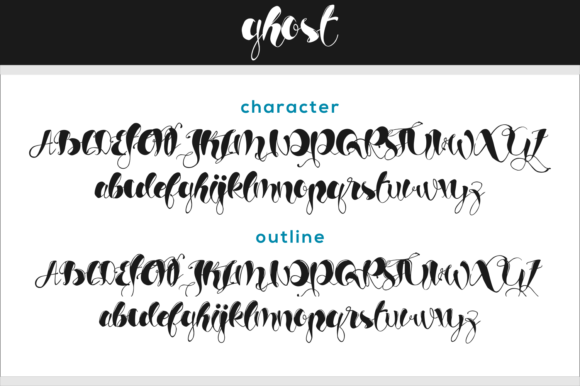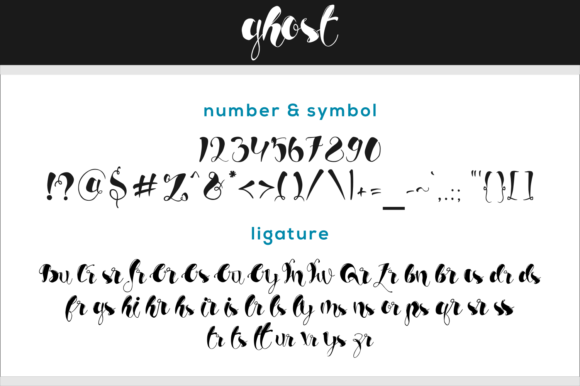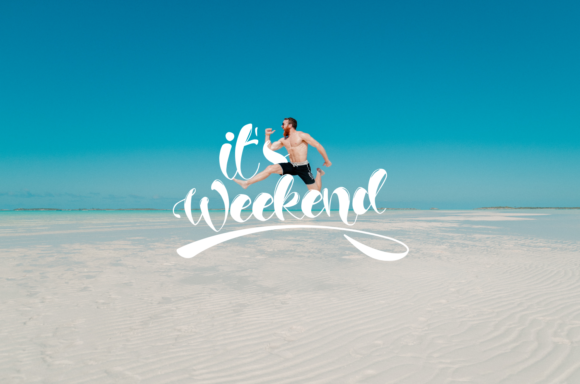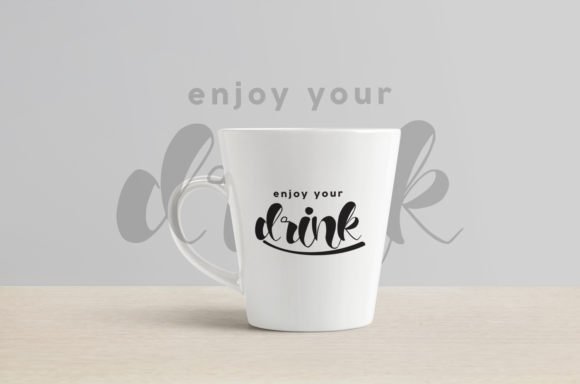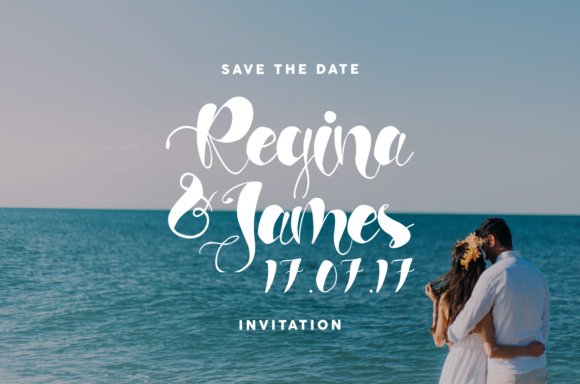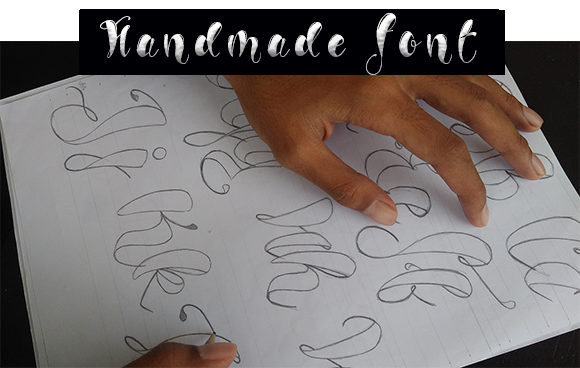
Introduction to Ghost Family Font
Have you ever found yourself stuck in front of a blank design screen, desperate for the perfect font to bring your creative project to life? It’s a moment we’ve all experienced, and it’s frustrating to say the least. But what if I told you that there’s a solution that can save the day, and it’s available for free?
The Ghost Family Font is a game-changer for designers, offering a versatile and high-quality design resource that can be used in a variety of creative ways. With its transparent background and ability to be combined with other styles, it’s the perfect tool for creating unique and eye-catching designs. Whether you’re working on a branding project or a digital art piece, the Ghost Family Font is a valuable addition to your design toolkit.
From its sleek and modern look to its flexibility and customizability, the Ghost Family Font is a must-have for any designer looking to take their work to the next level.
Key Features of Ghost Family Font
- High-quality design resource perfect for creative projects, offering a unique and elegant touch.
- Features a transparent background, allowing for easy customization and blending with other design elements.
- Comes in 6 different font styles, each with its unique characteristics and design elements, making it suitable for a wide range of creative projects.
Honest Review: Ghost Family Font
I recently stumbled upon the Ghost Family Font and was immediately drawn to its sleek, modern design. As a designer, I appreciate high-quality fonts that can elevate a creative project. And let me tell you, this font delivers.
What works well is the font’s versatility – it’s perfect for a variety of design projects, from logos to editorial content. The transparent background is a great touch, allowing for seamless integration into any design. I also appreciate the fact that it’s a free download, making it an excellent resource for designers on a budget.
- ✨ Unique and modern design that stands out from the crowd
- ✨ Highly versatile, suitable for various design projects
- ✨ Transparent background for seamless integration
However, I do have one minor issue: the font’s weight is a bit inconsistent, which can be distracting in some cases. ⚠️ It’s not a deal-breaker, but it’s worth noting.
Overall, I’m impressed with the Ghost Family Font. It’s a great addition to any designer’s toolkit, and I’d highly recommend it for any creative project.
Getting the Most Out of Ghost Family Font
To get the most out of the Ghost Family Font, use it in combination with other design elements, such as images or graphics, to create a cohesive and visually appealing design. You can also experiment with different font sizes, colors, and transparencies to achieve the desired effect.
The Ghost Family Font is suitable for various creative projects, including brochures, flyers, business cards, and social media graphics. It’s a free download and a high-quality design resource that can elevate your design game.